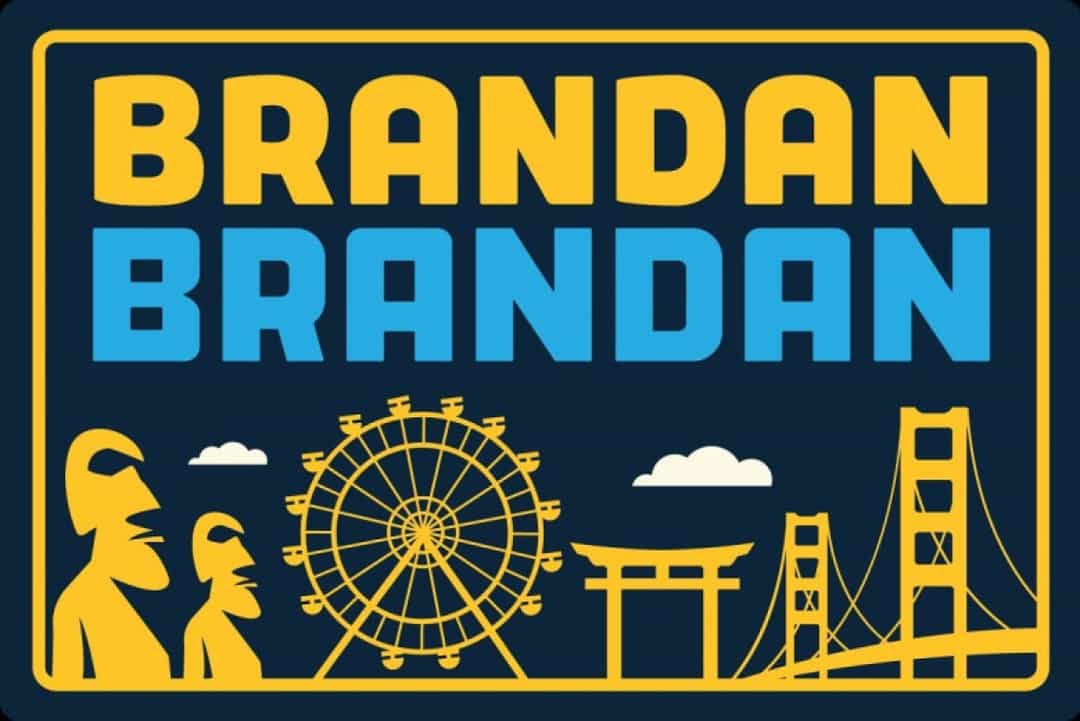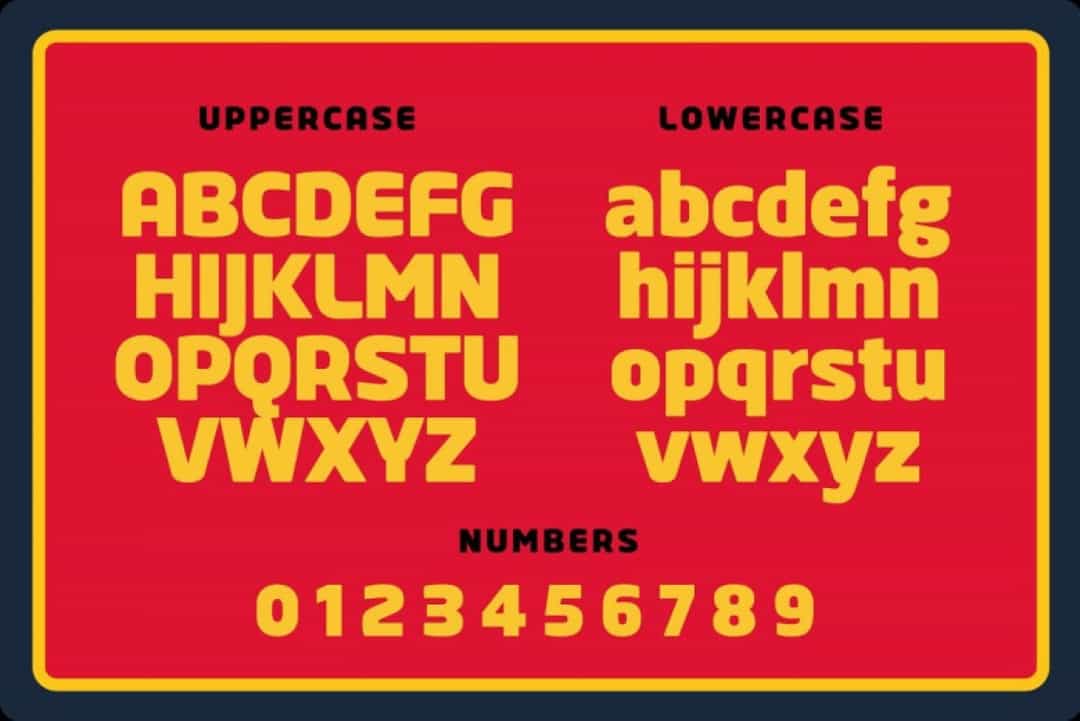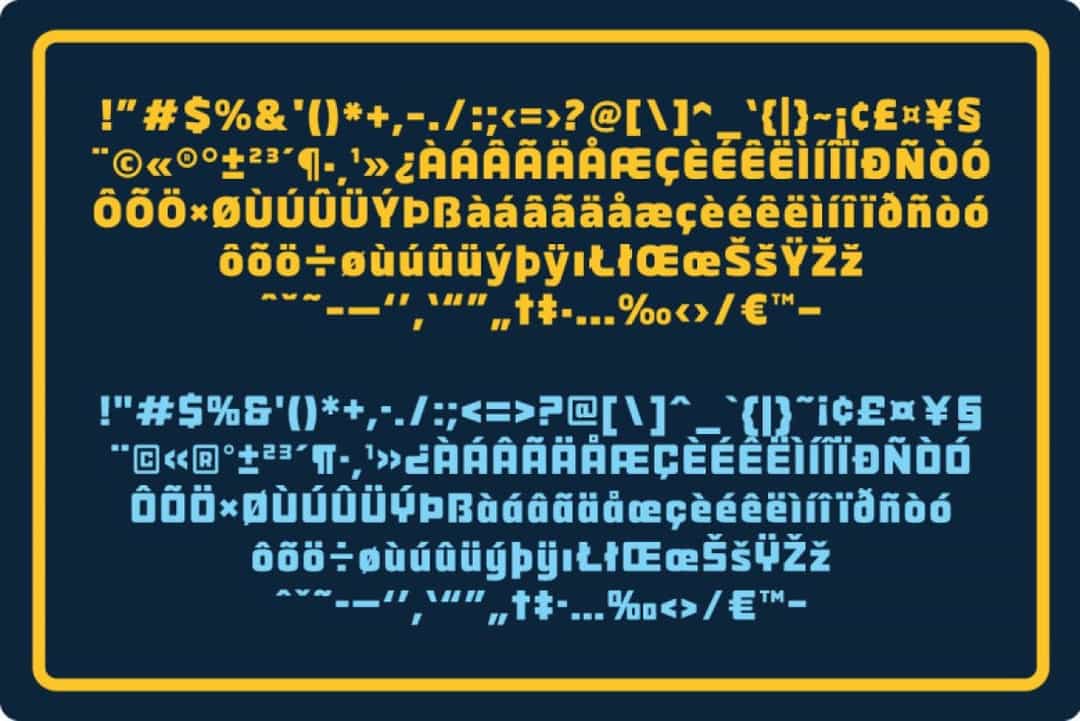
Brandan Font
Brandan Font is an eye-catching sans serif font with two versions designed specifically to work well in circular logos. The letters fill in spaces efficiently in circular logos for an organic appearance that works beautifully with any type of logo and name imaginable – two variants make great combos! Having it in your library ensures it will always work in most situations!